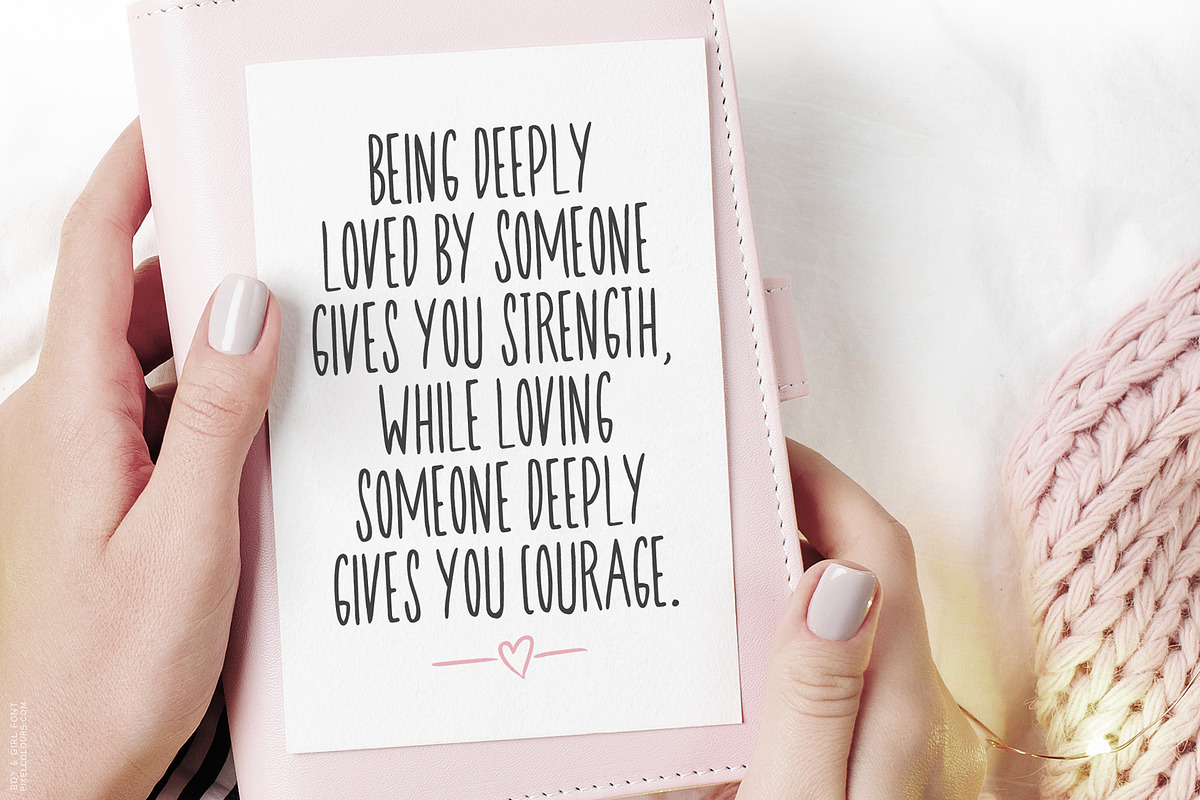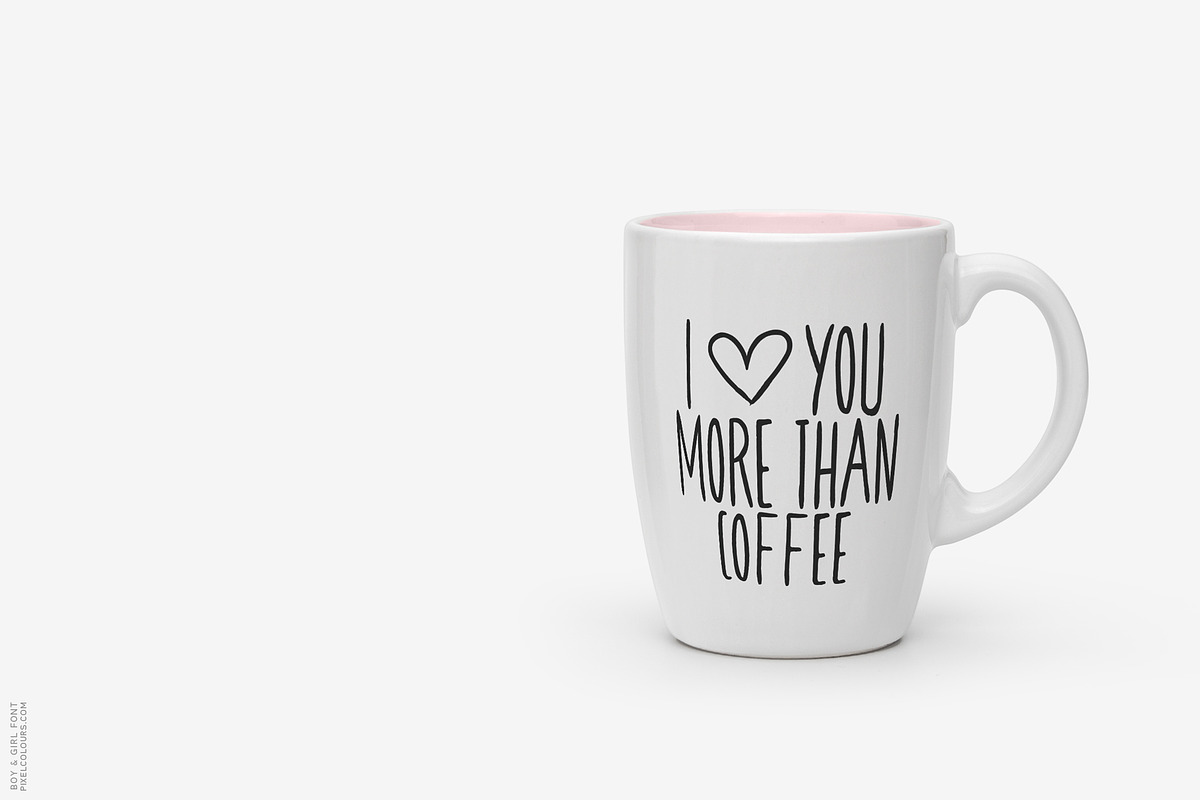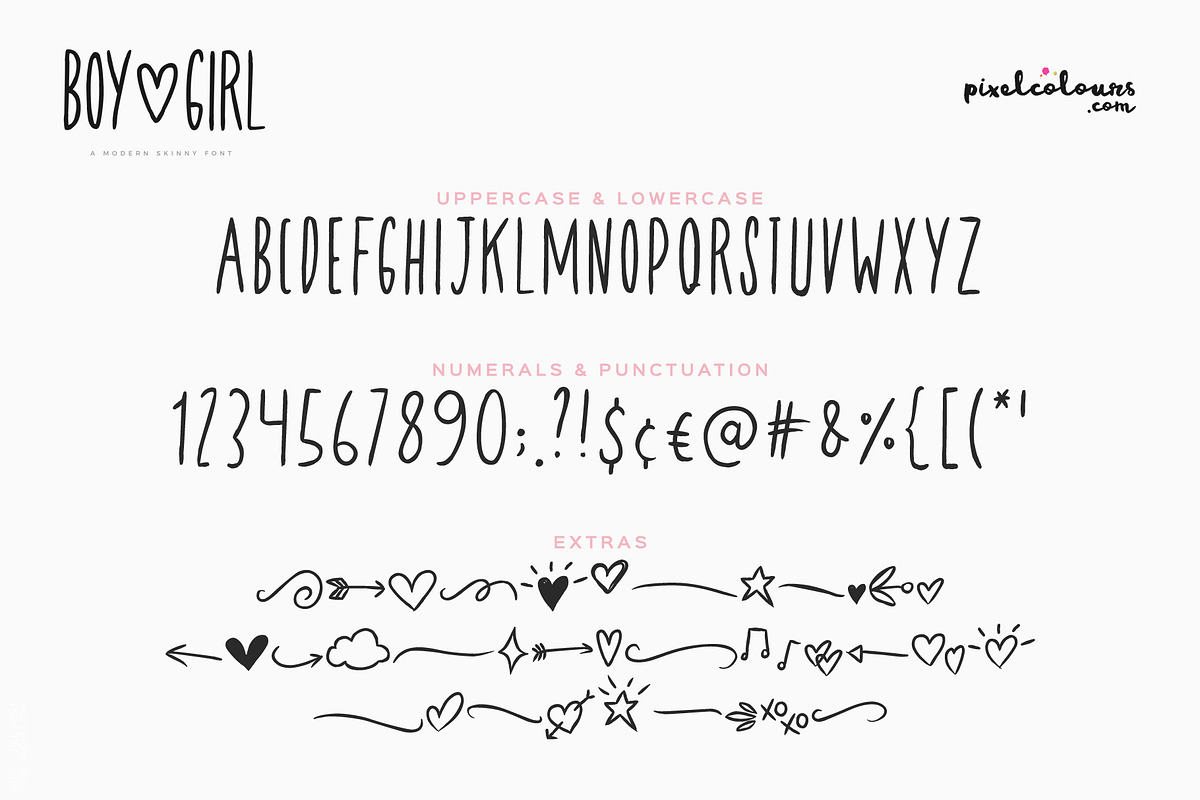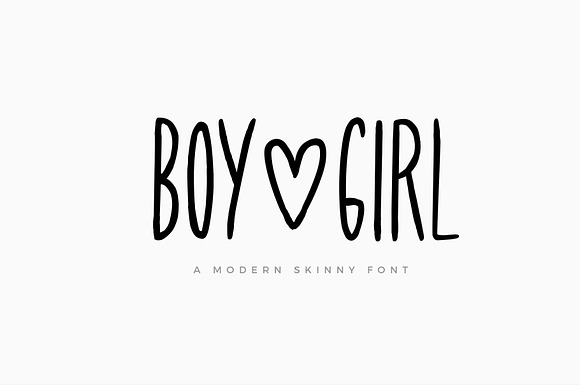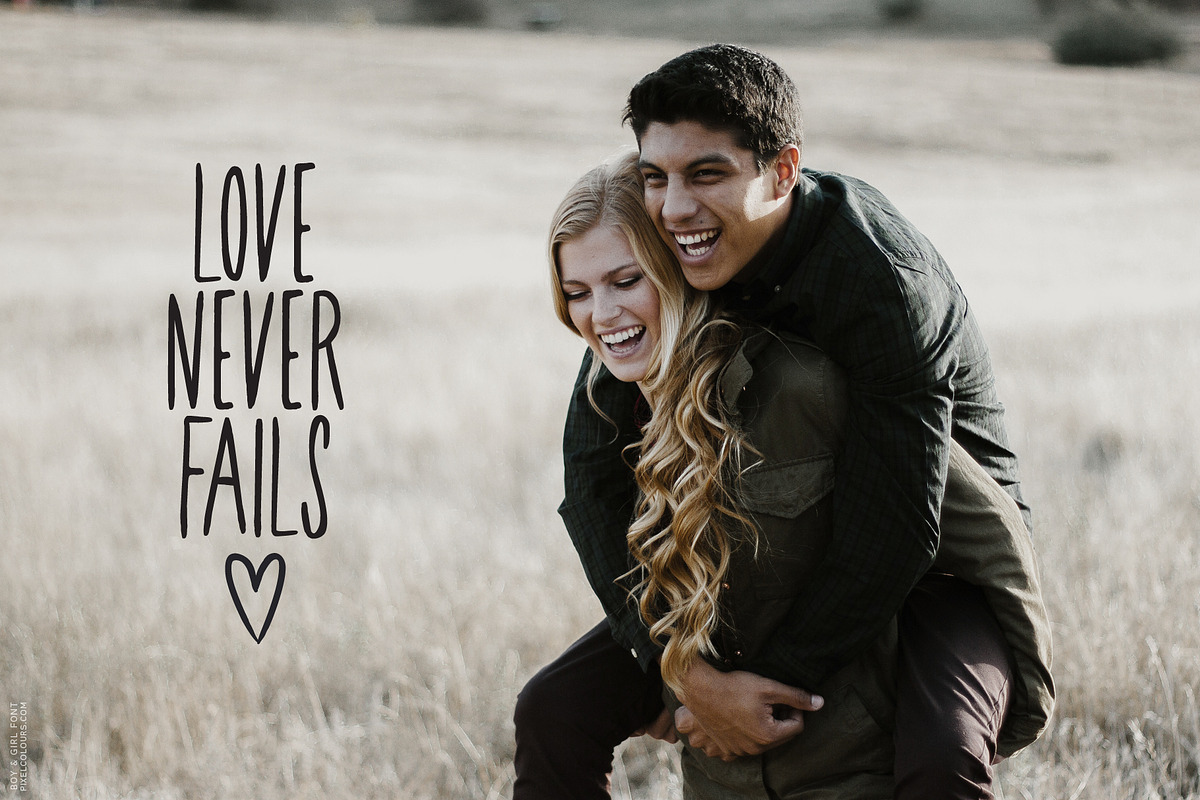
Skinny Font Boy and Girl
An imperfect modern skinny font full of love with extra clipart to make your designs more fun! Great for quotes, logos, titles, recipes, social media posts, etc.
Boy & Girl Skinny Uppercase Font
Boy & Girl Extras Font
Numbers and punctuation